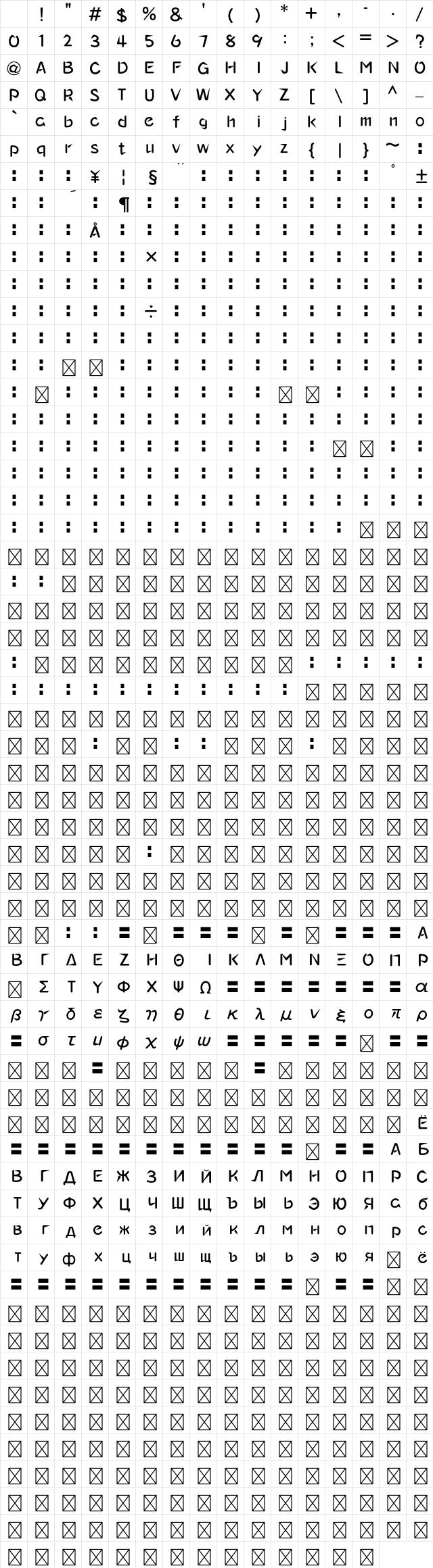
Complete A-OTF Takarhythm Min M glyph index. Displaying only characters natively supported by A-OTF Takarhythm Min M font.
A-OTF Takarhythm Min is a composed and adaptable typeface that performs quietly and consistently across a wide range of design contexts.